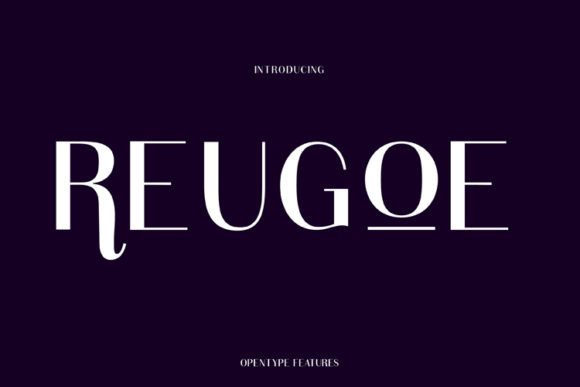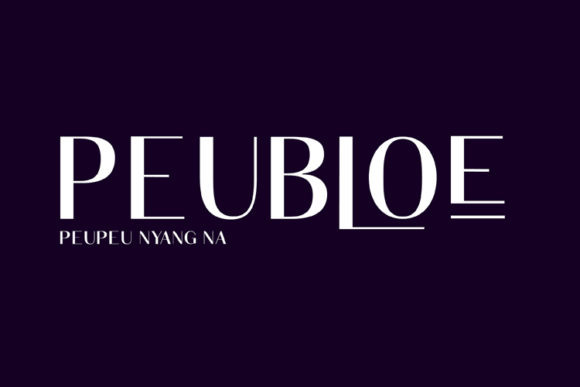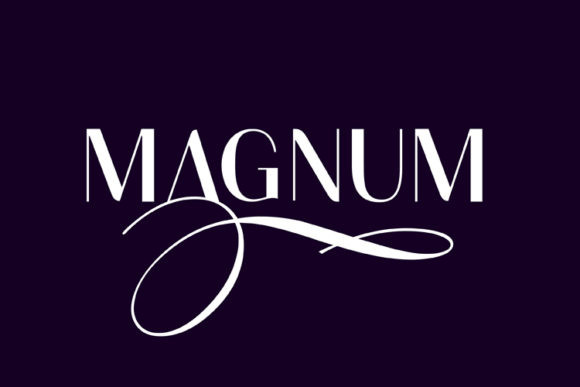
Reugoe Font
Reugoe is a display font with classic style that produces a beautiful and elegant style. Use it for any design project that requires a personalized appearance!